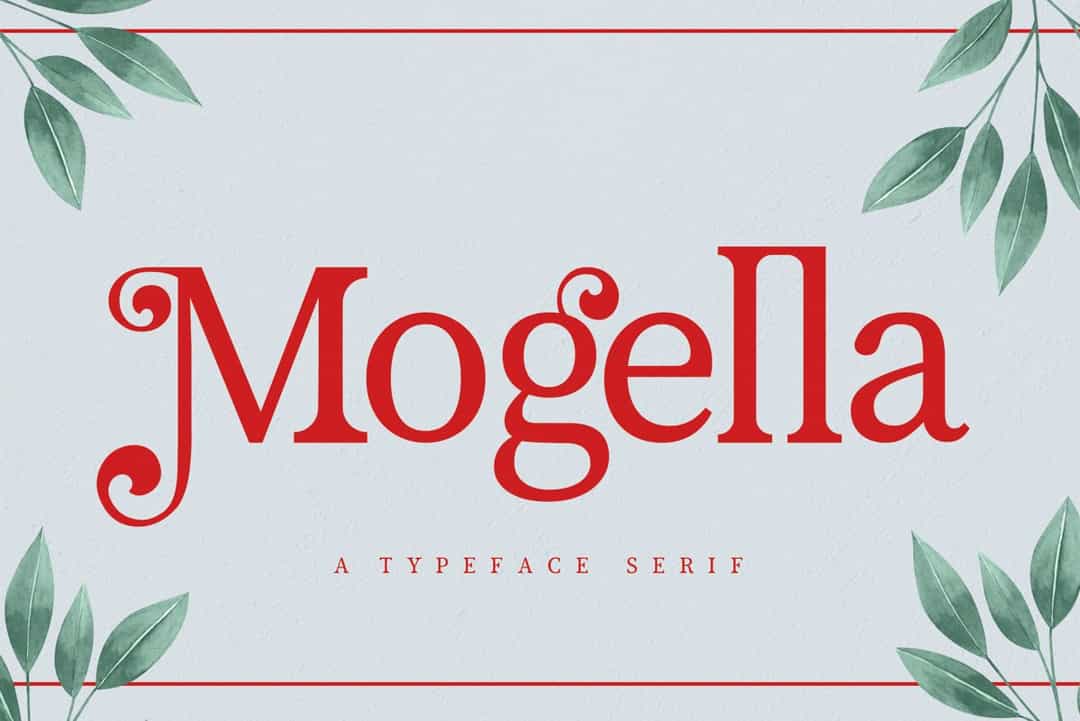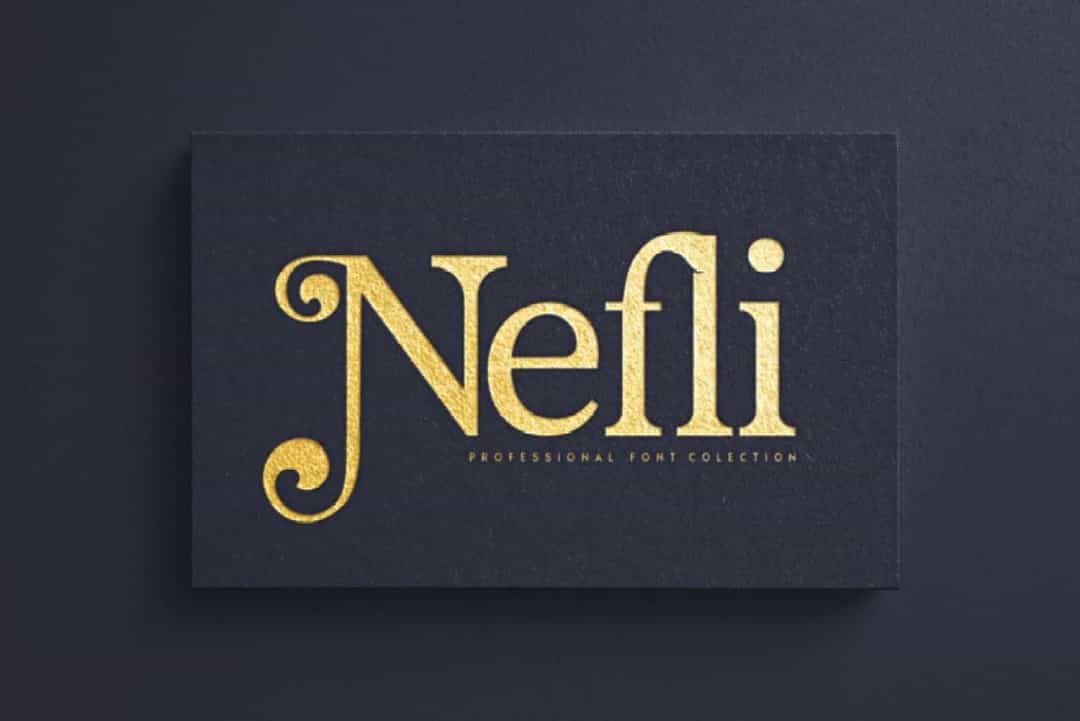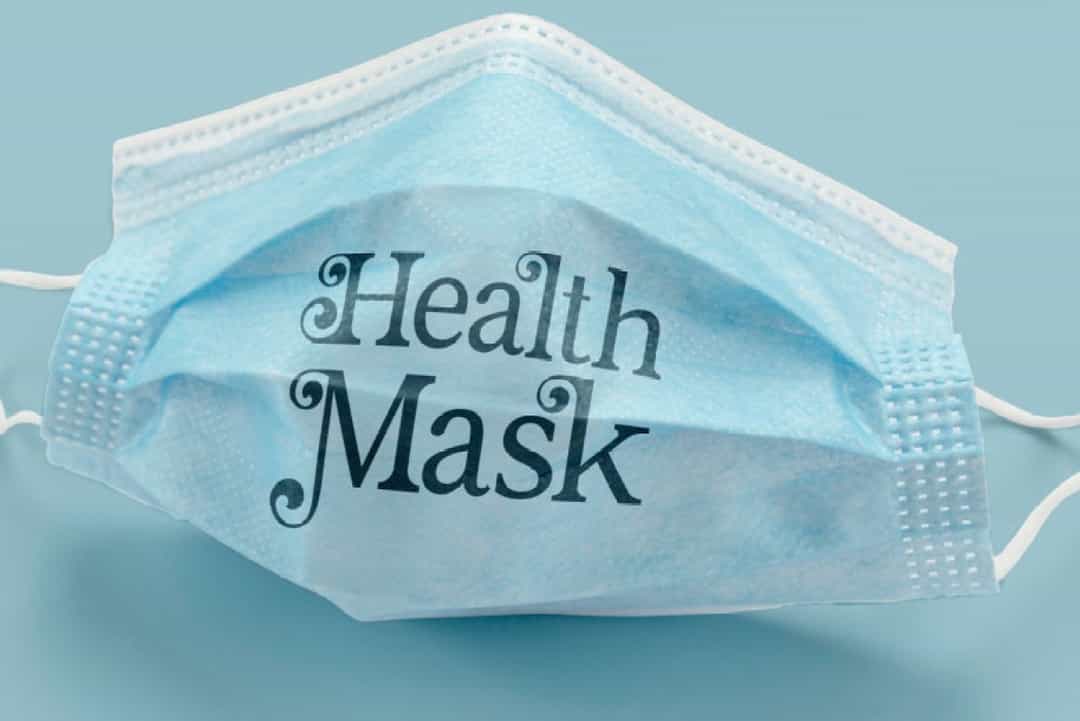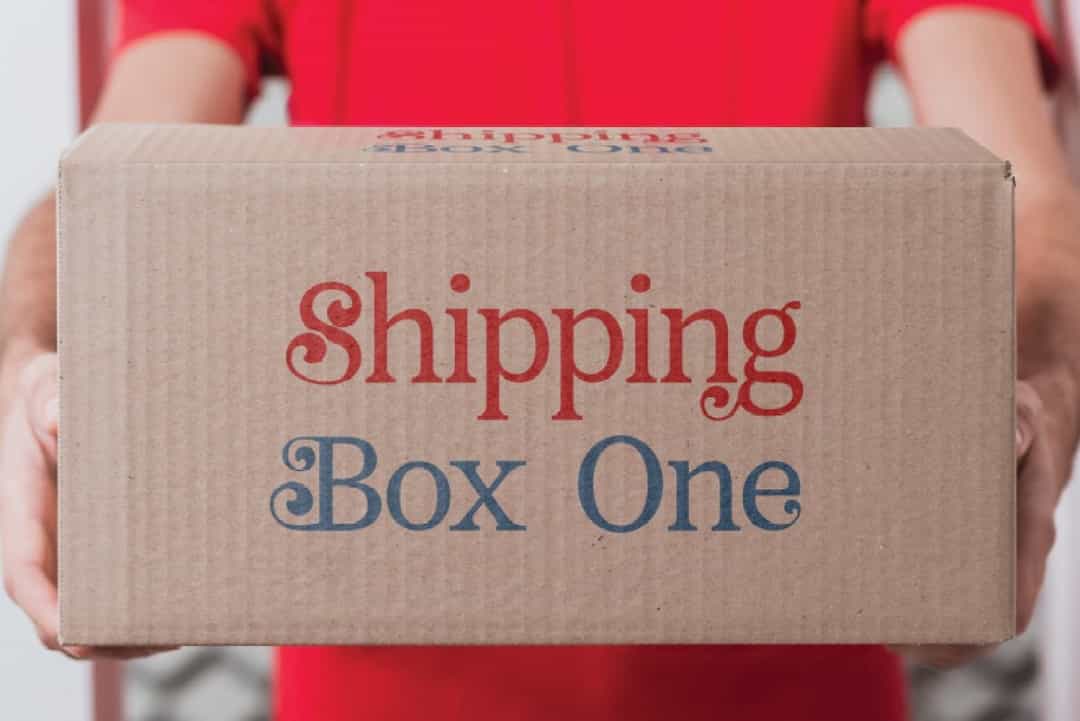
Mogella it is a highly developed and efficient serif font with elegant and strong letters. We are completely obsessed with this stunningly versatile design and use it to create beautiful wedding invitations, beautiful stationery art, attractive tweets on social media and much more!